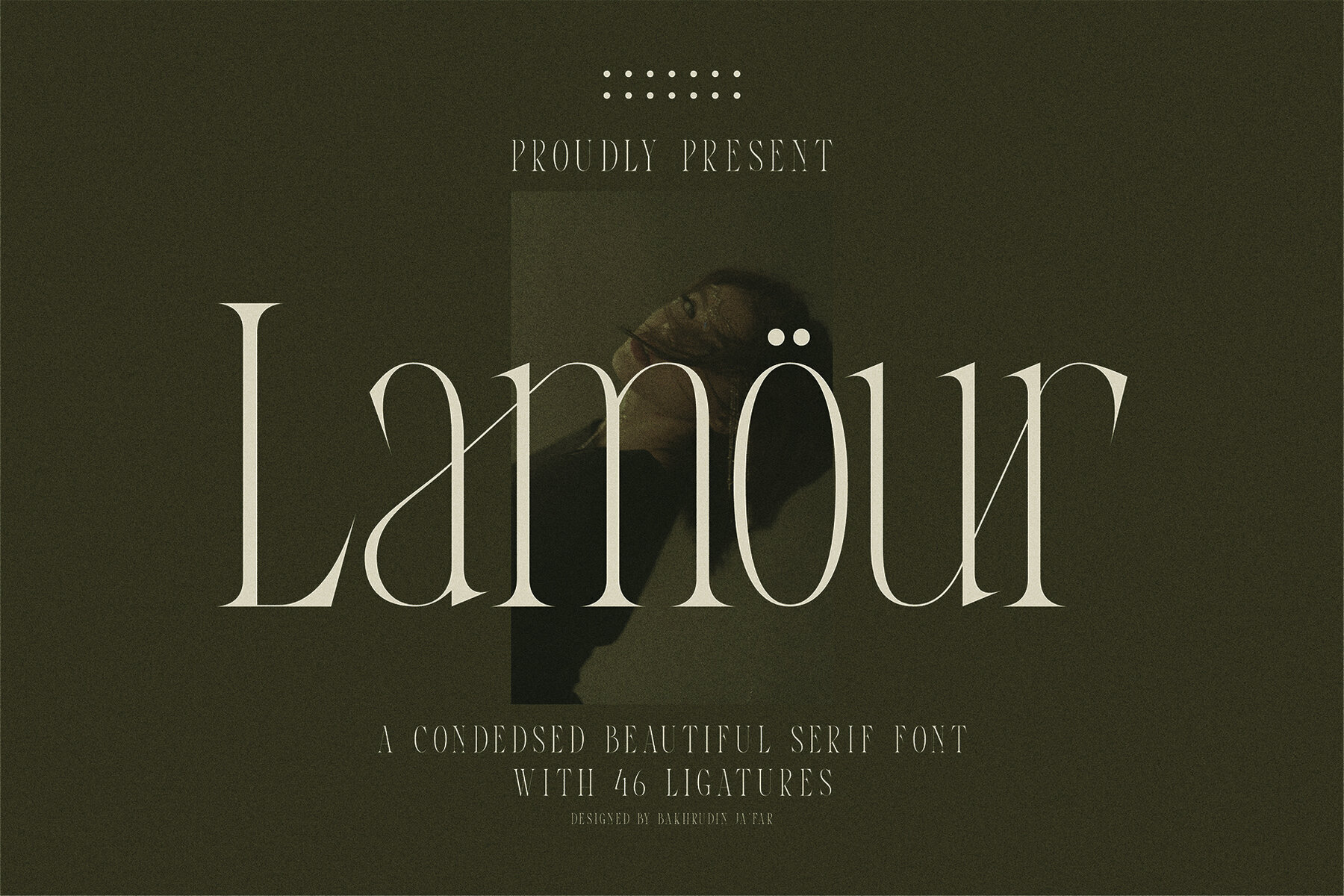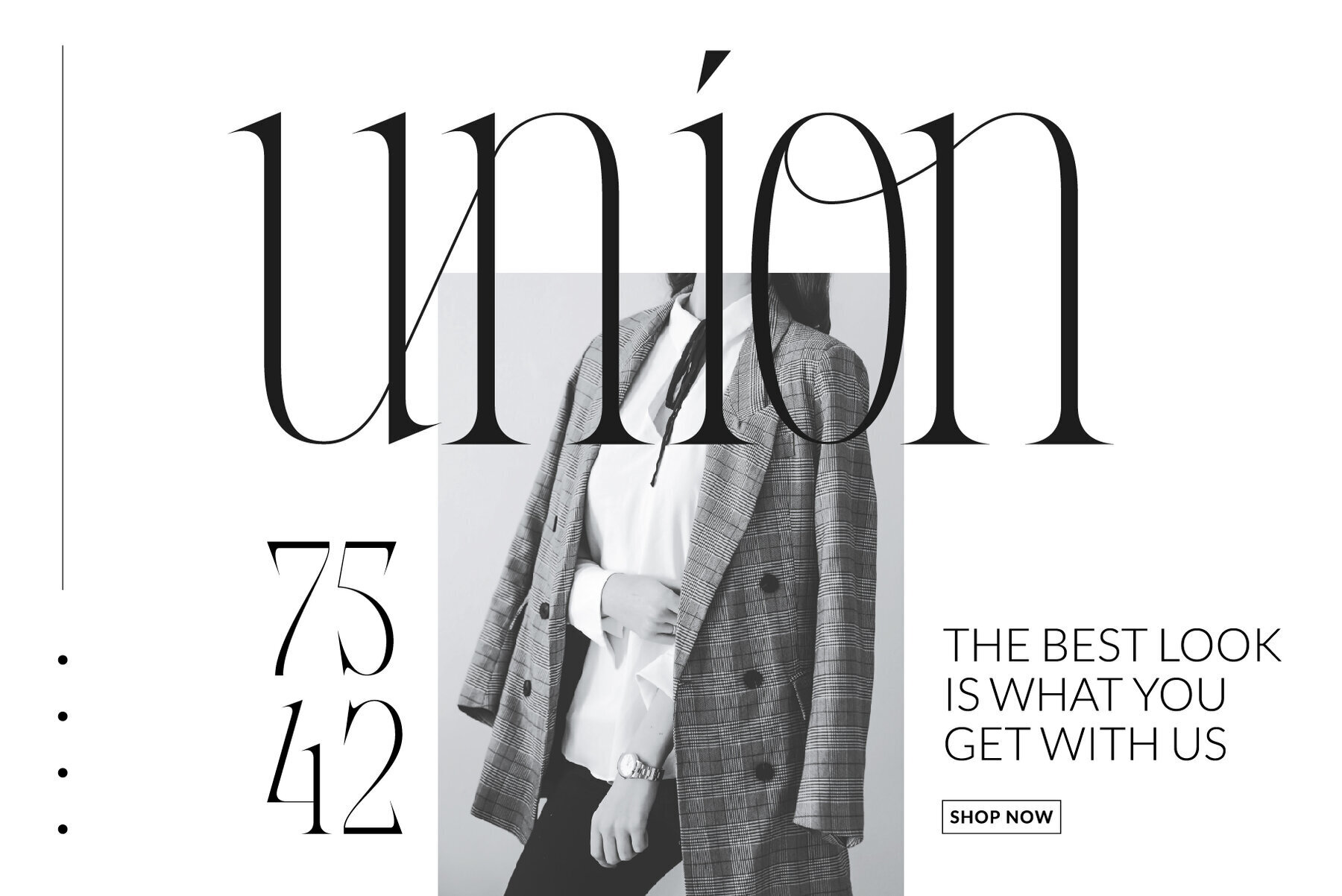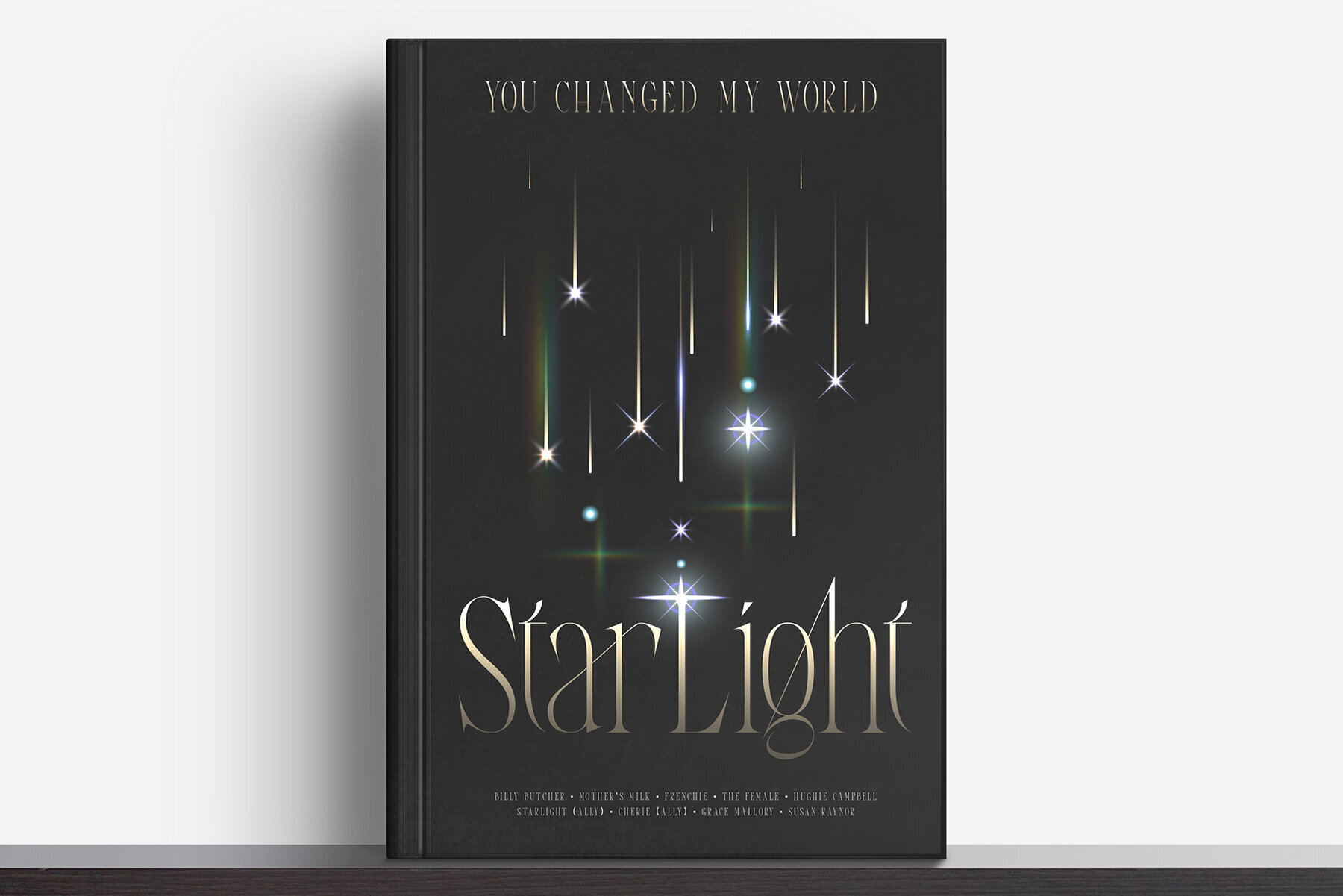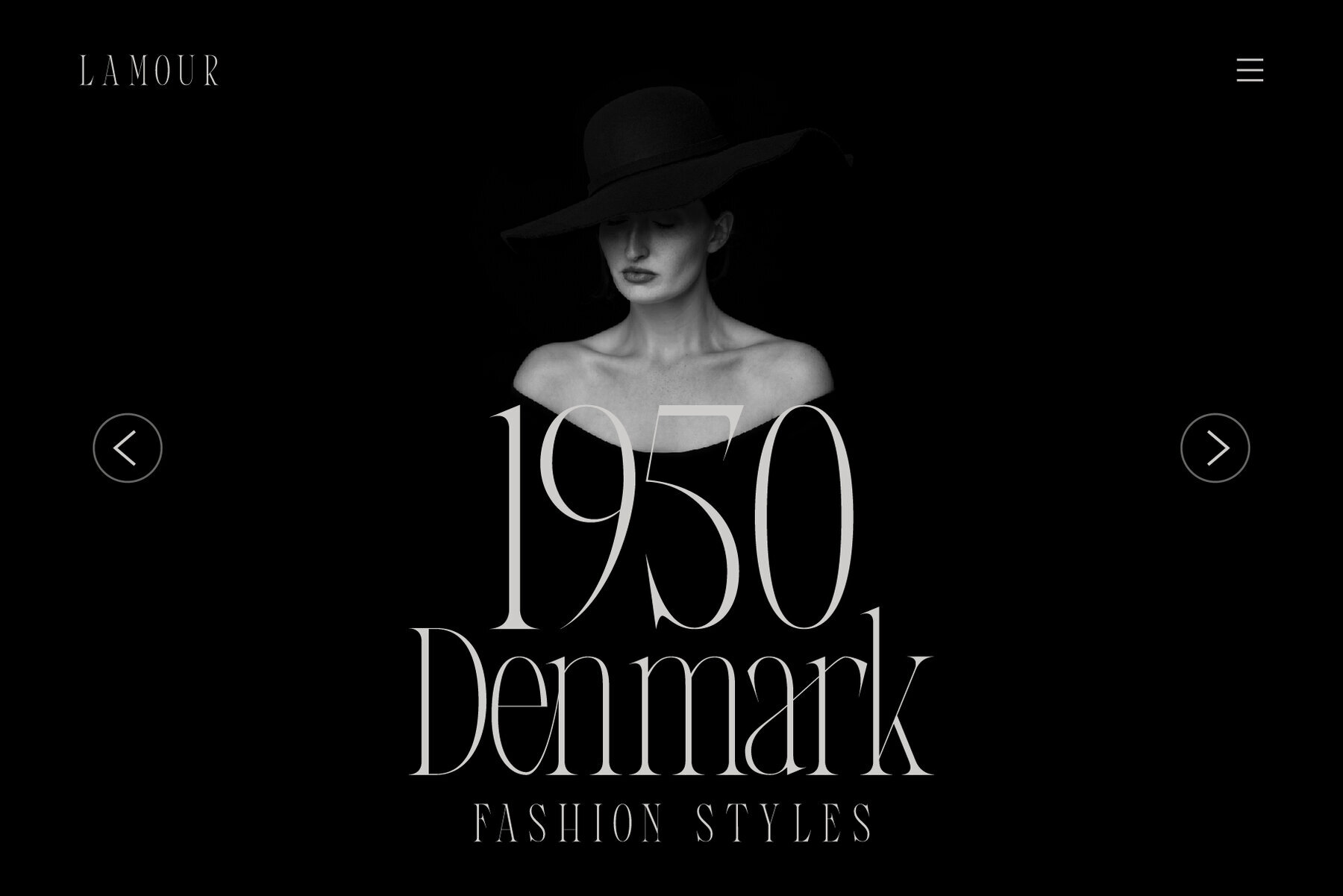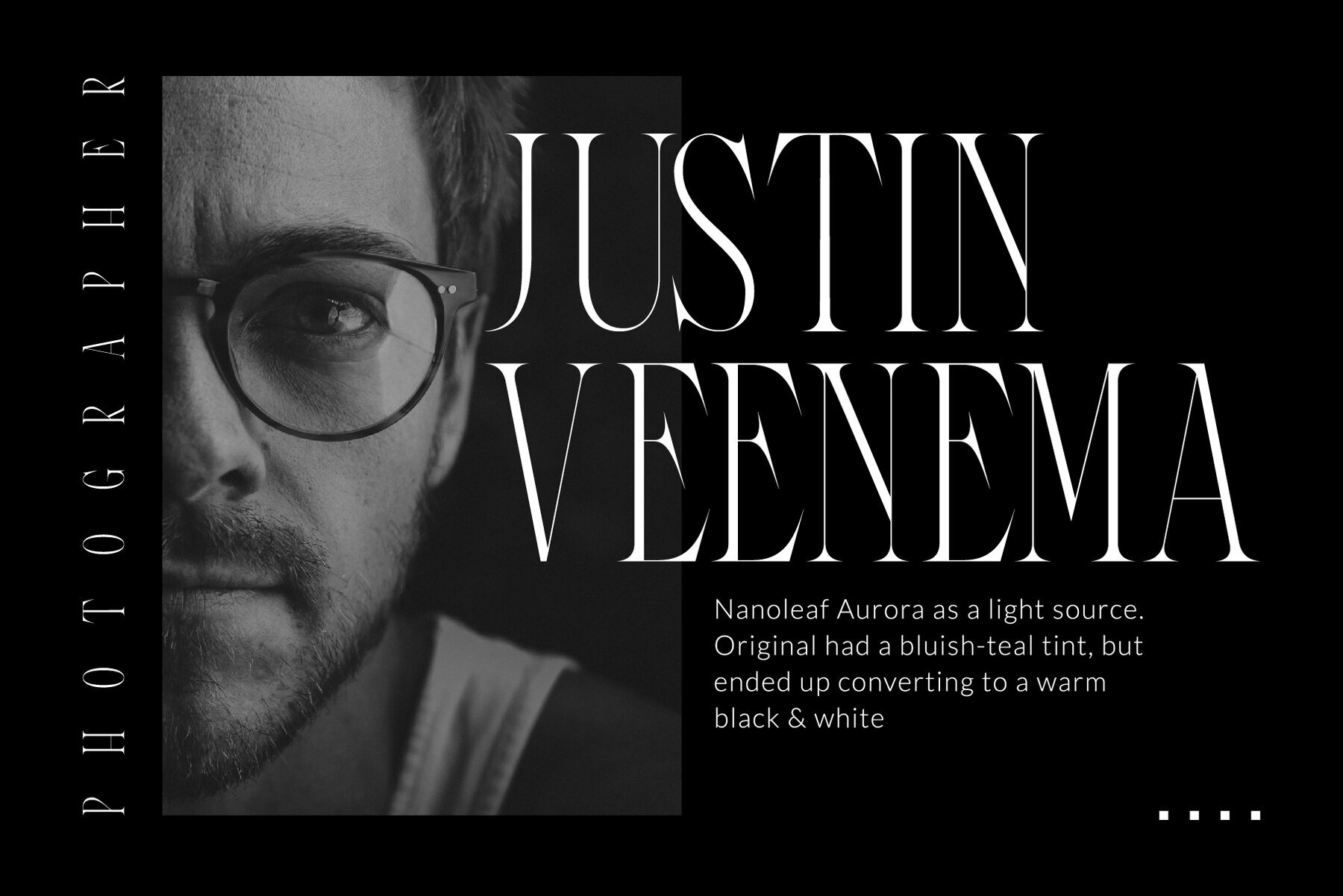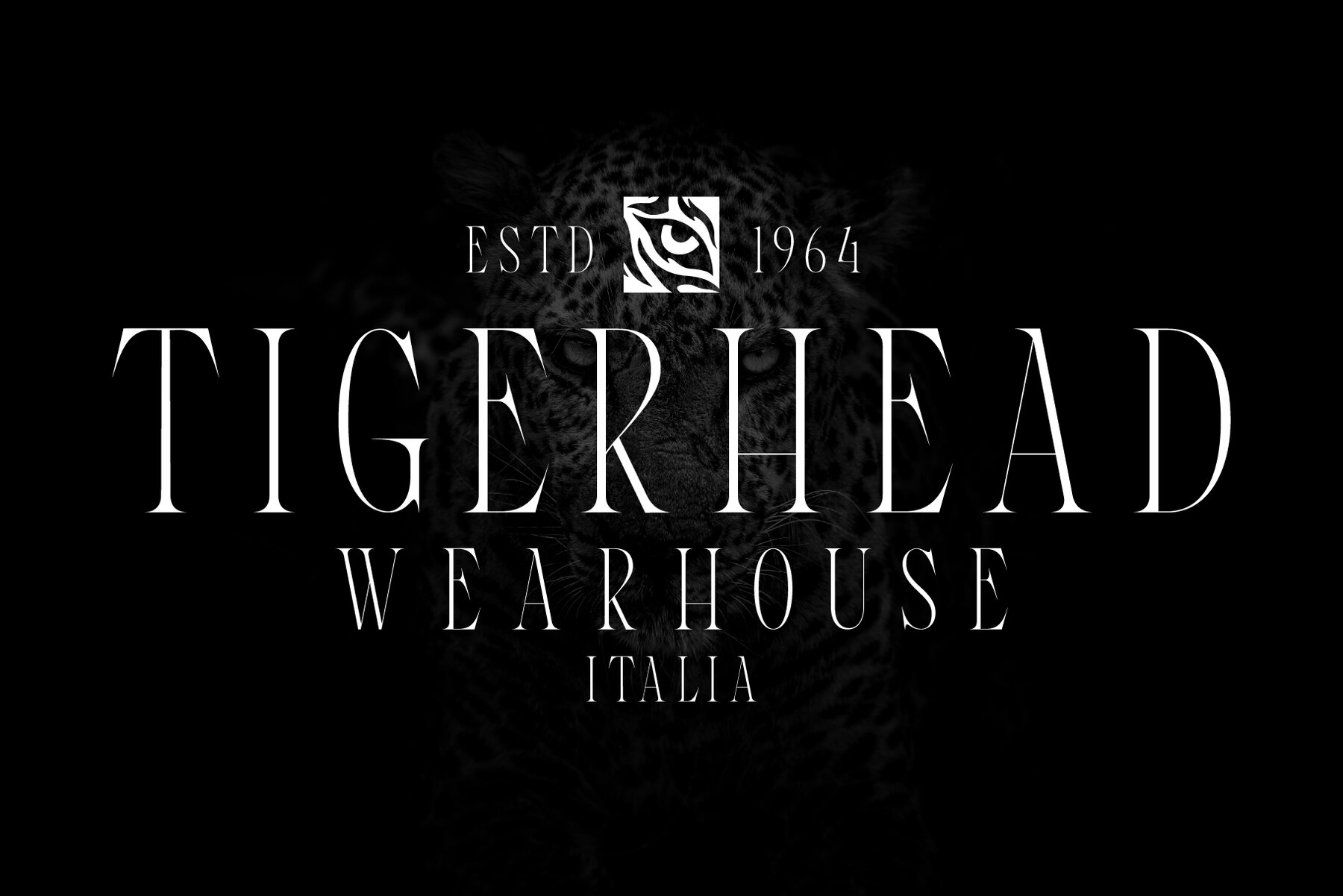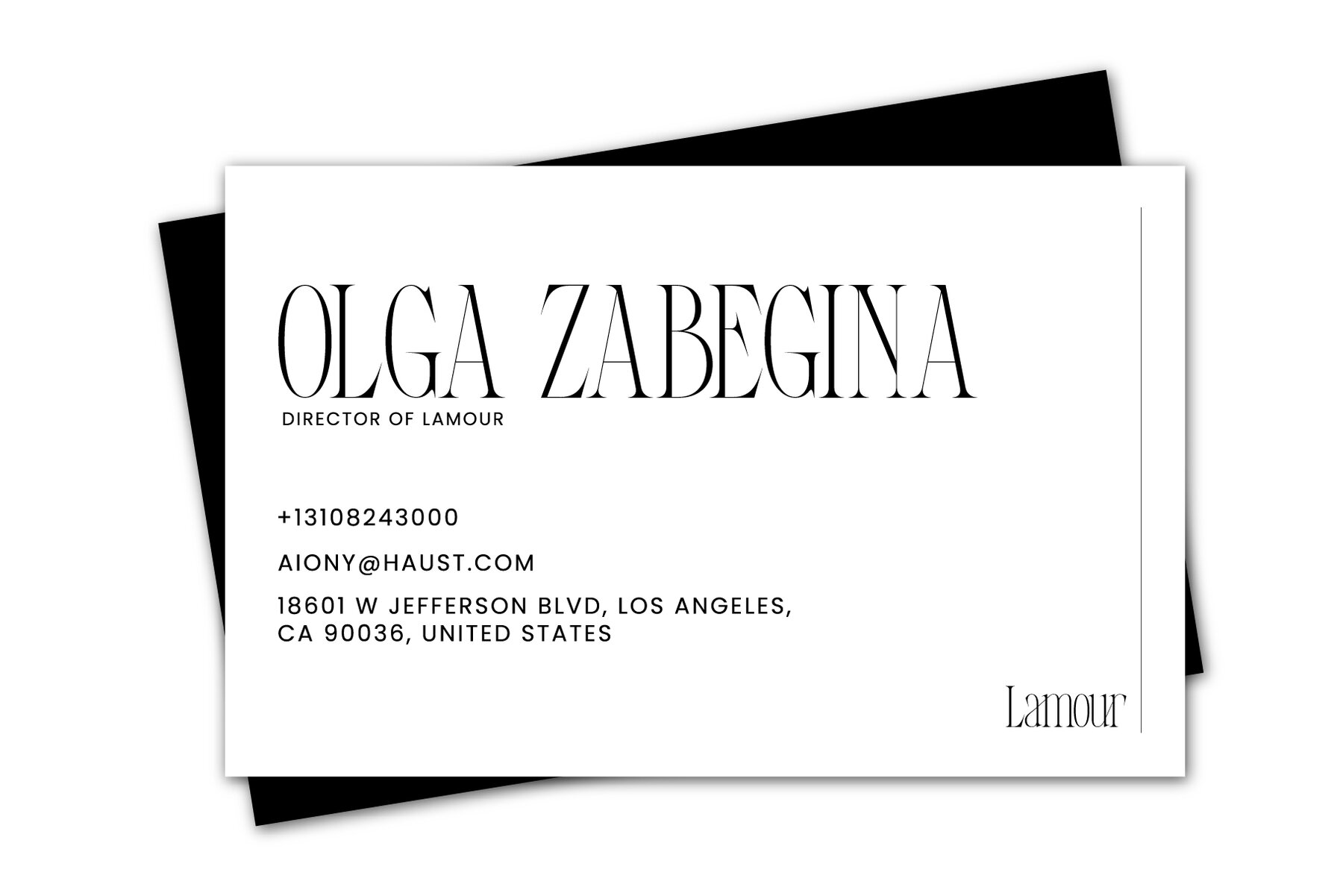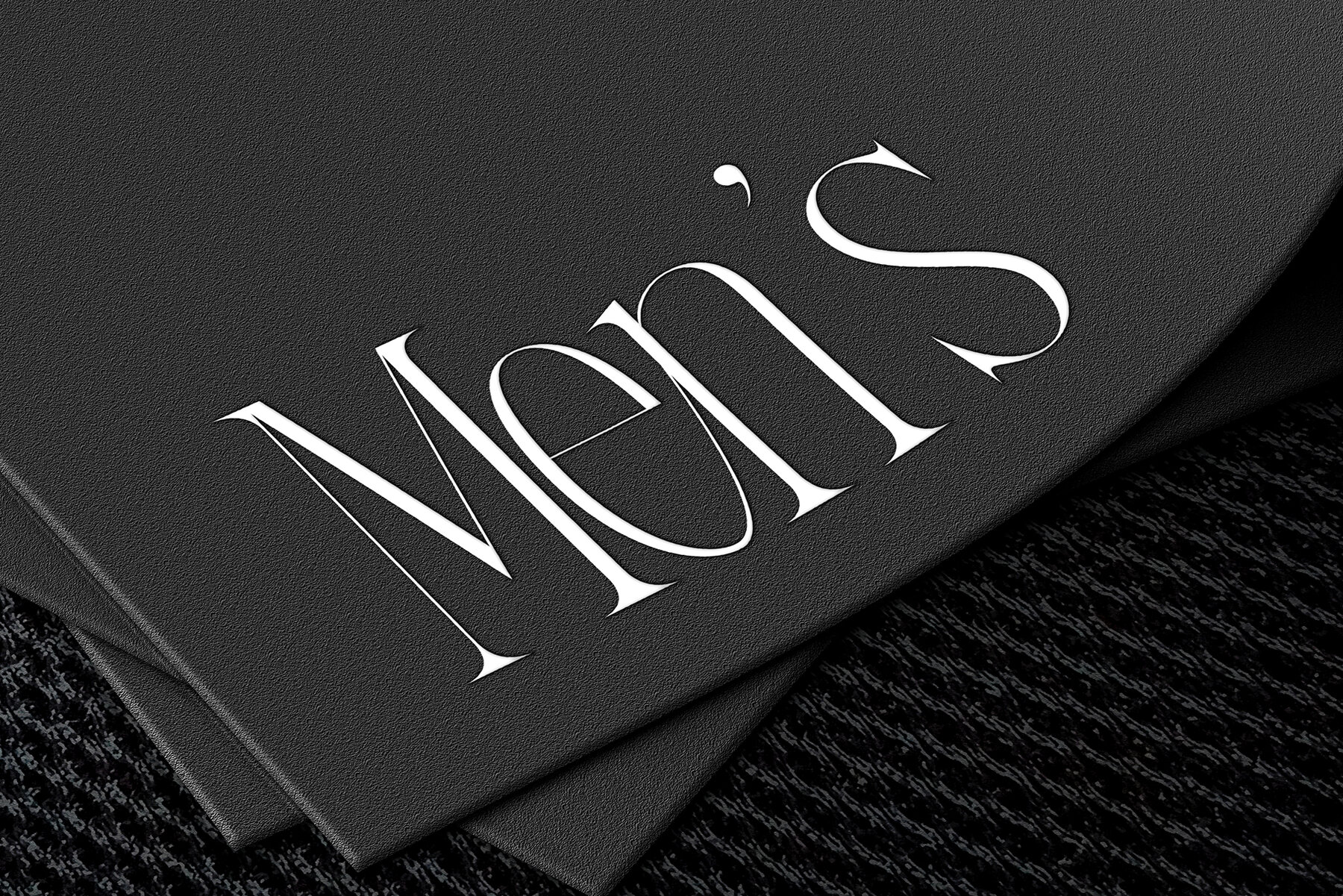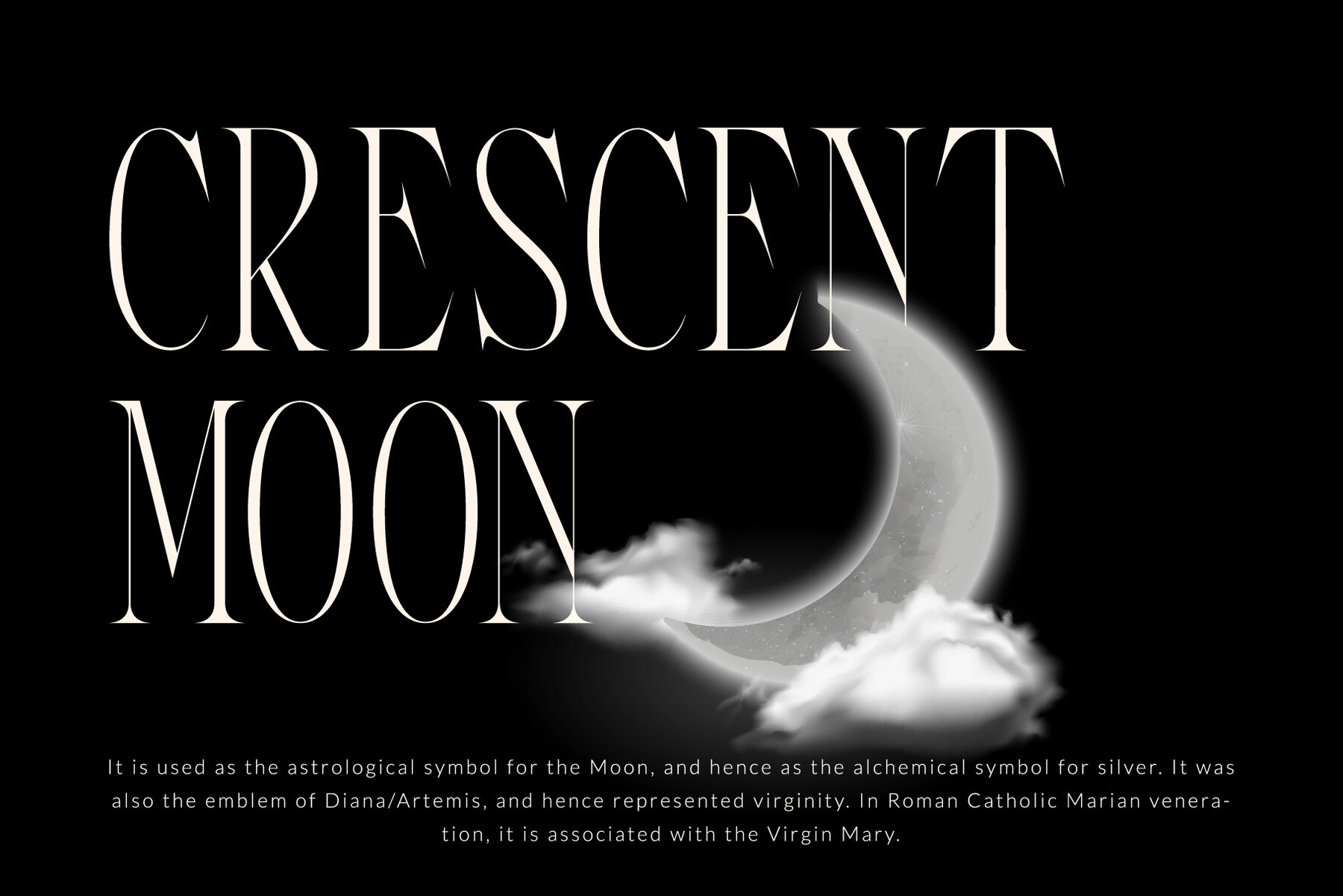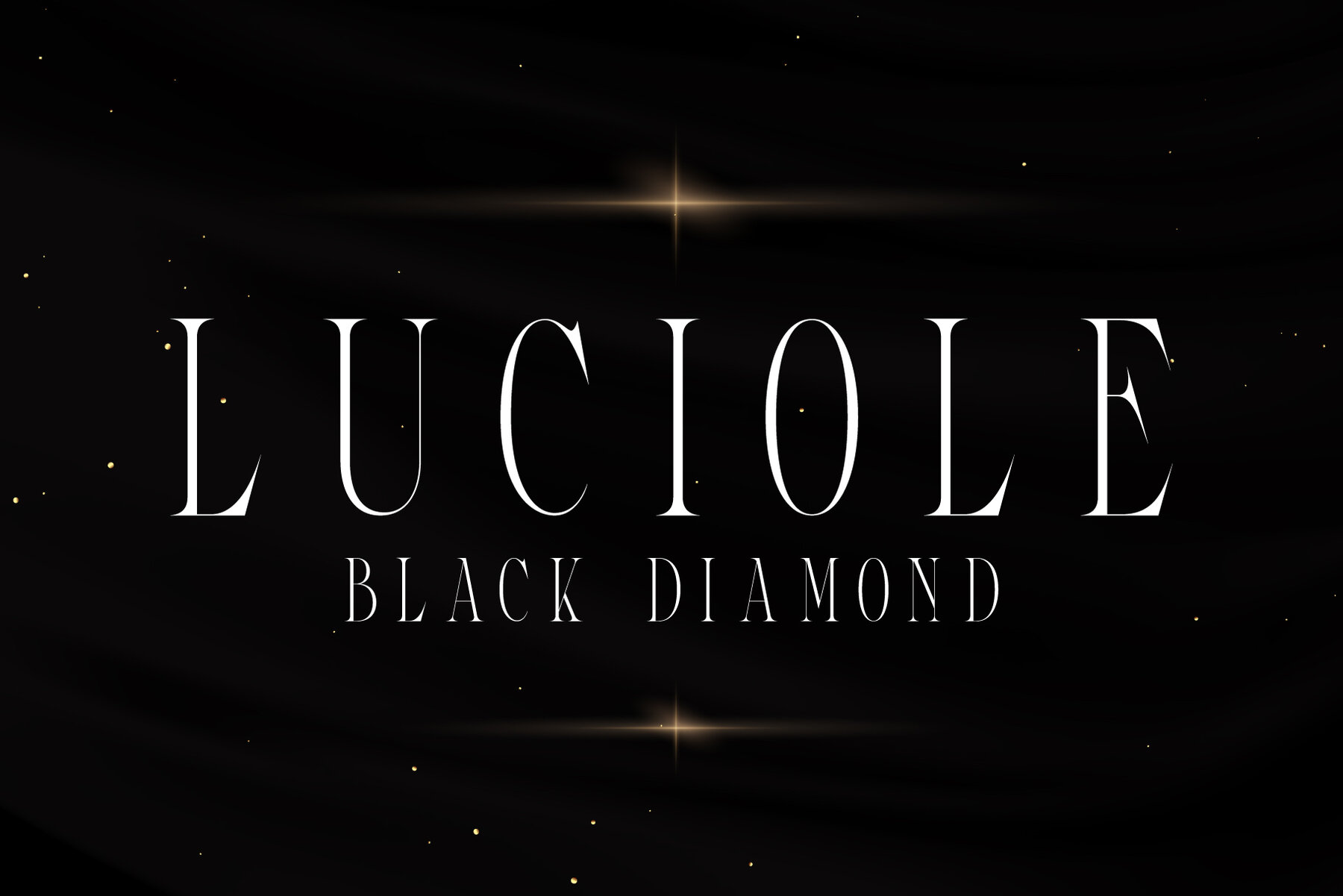
Lamour Font
Lamour
Lamour emerges as a meticulously designed condensed serif font embodying luxury and precision. Its clean aesthetic makes it ideal for designers seeking a refined yet distinctive typeface. Each letterform is crafted to provide an elegant reading experience, ensuring your project conveys sophistication and clarity. Inspired by the concept of love, Lamour channels this emotion into a font that captures both the mind and heart.Lamour: A Luxe Condensed Serif
Notable Features